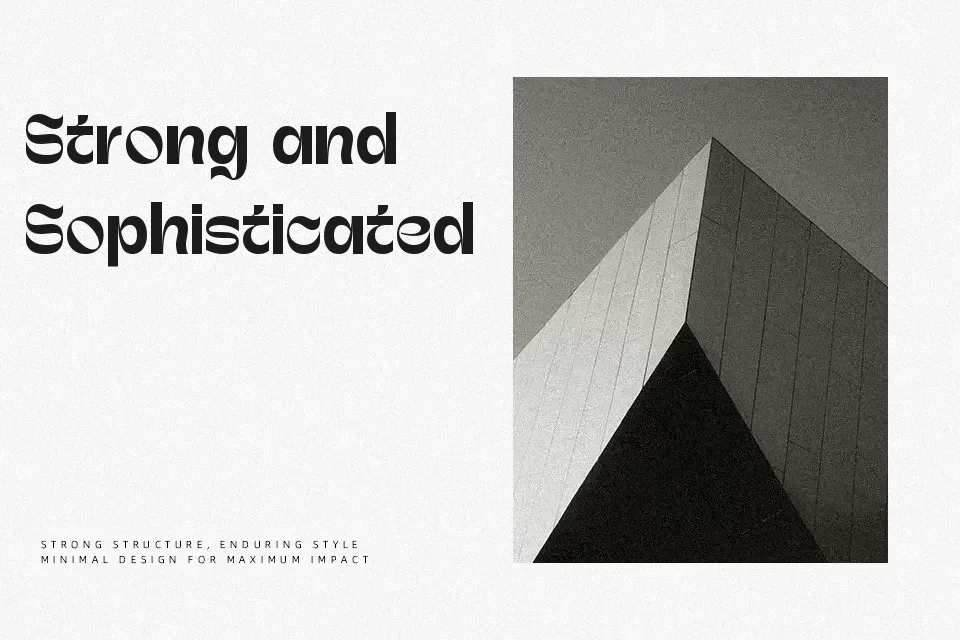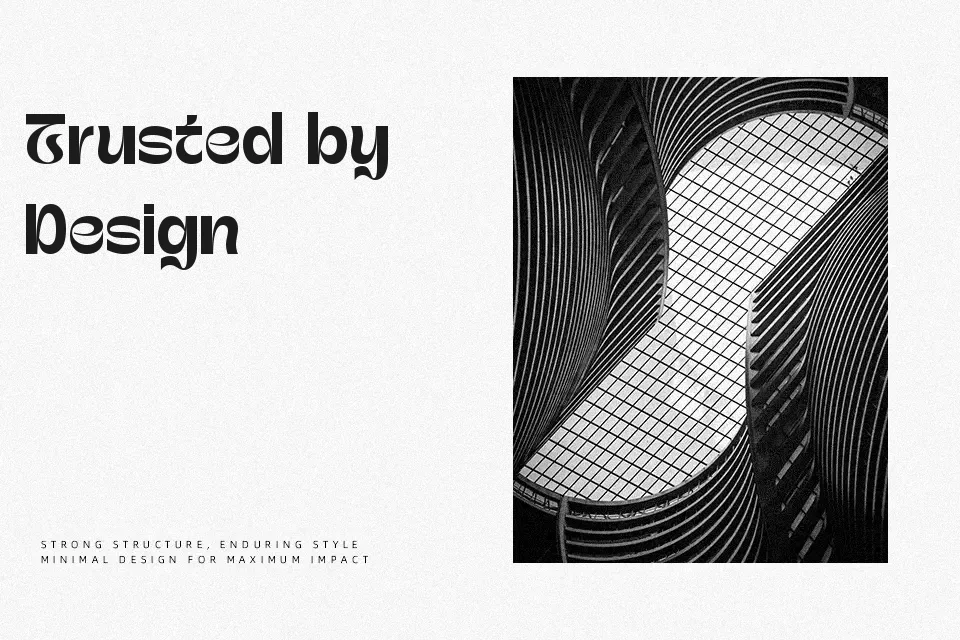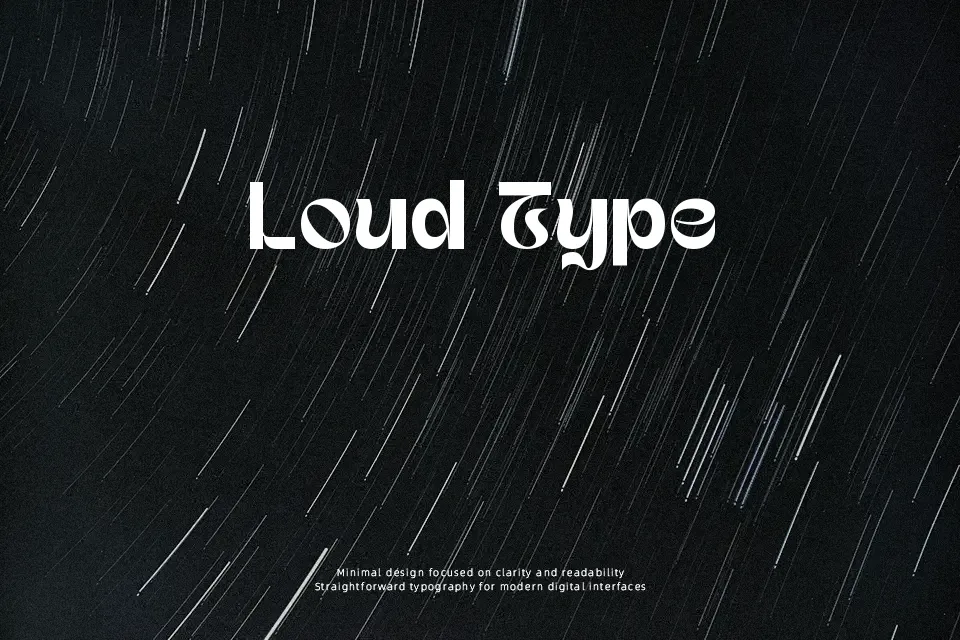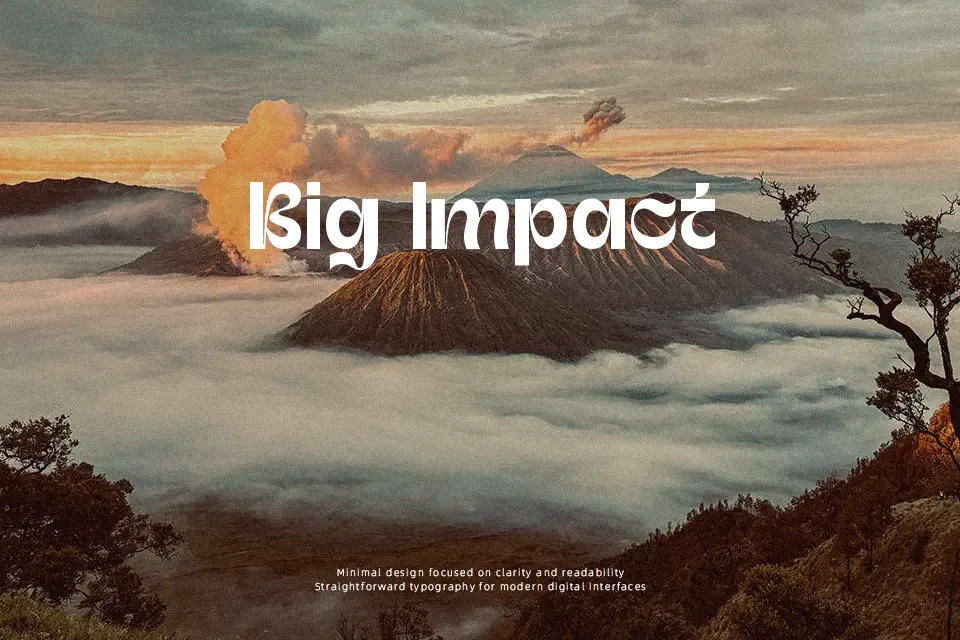
Uertas Font
Uertas Font uses thick, rounded forms with exaggerated curves and a distinctly groovy display rhythm. The letterforms appear broad and closely shaped for impact rather than neutral reading, while the smooth, substantial strokes keep short words visible in larger settings. Its proportions give headlines and logo treatments a playful, retro-leaning character. The spacing works best when the design has room to breathe, especially on posters, labels, and packaging fronts. At small sizes, the decorative construction can make individual details less clear, so it is a less practical choice for dense copy or compact interface text.
Best For: retro product packaging,festival poster headlines,playful logo concepts,apparel graphics
Perfect for advertising, headline, and logo, with a bold and decorative style.